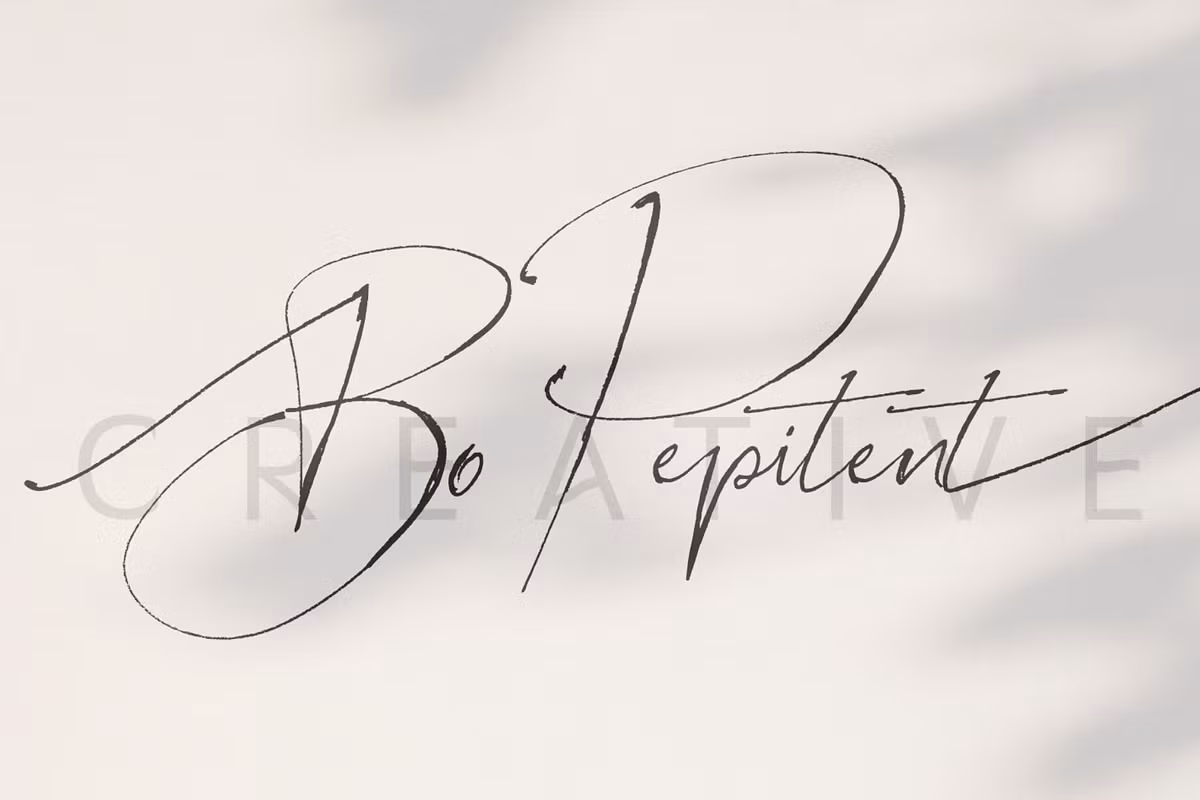
Please note, you must purchase this font for commercial use. However, you can easily download Studio Baked Font Collection Free Download for personal use and testing purposes. Studio Baked Font Collection is a versatile and stylish set of fonts designed to suit a variety of creative projects. Whether you're working on branding, logos, packaging, invitations, or social media graphics, this collection offers a range of carefully crafted typefaces that add personality and charm to any design. With both script and display fonts included, Studio Baked Font Collection Free Download ensures you have the perfect typography for every need. Download Studio Baked Font Collection Free Download today and explore its creative potential before opting for a commercial license.